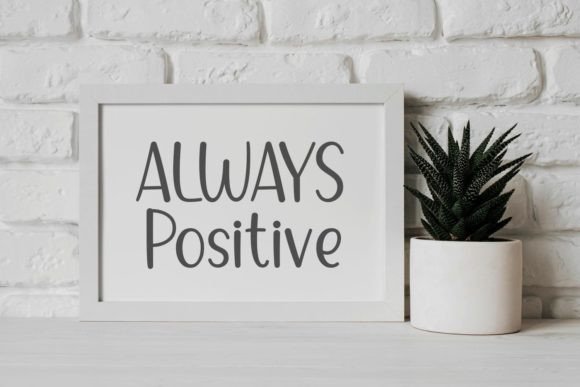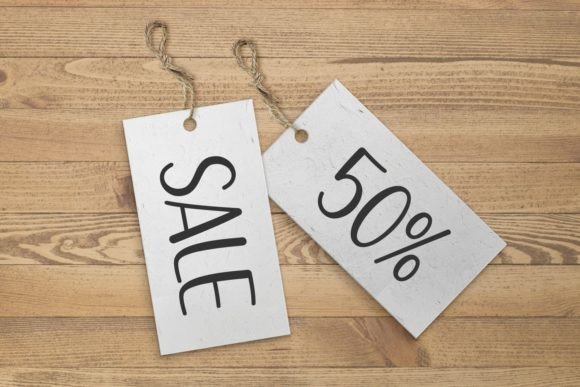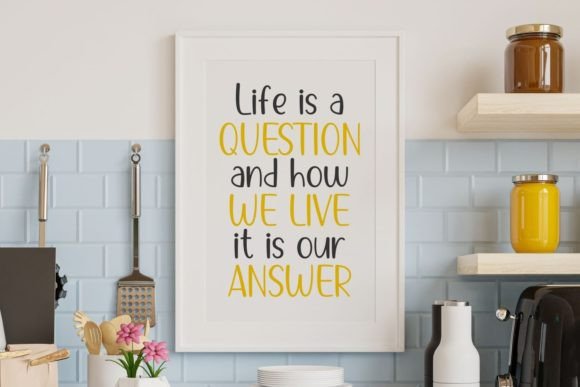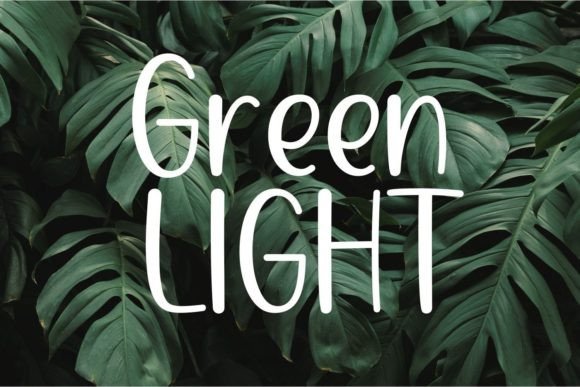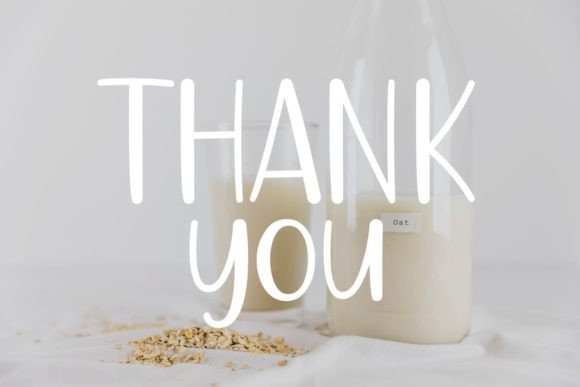
Introduction to Milky Moon Font
Milky Moon is a slim and exquisite handwritten font.
Stylish, graceful, and flowing, this font will definitely elevate the look of any of your beautiful creations while keeping them grounded and natural .
Key Features of Milky Moon Font
Why Choose Milky Moon Font?